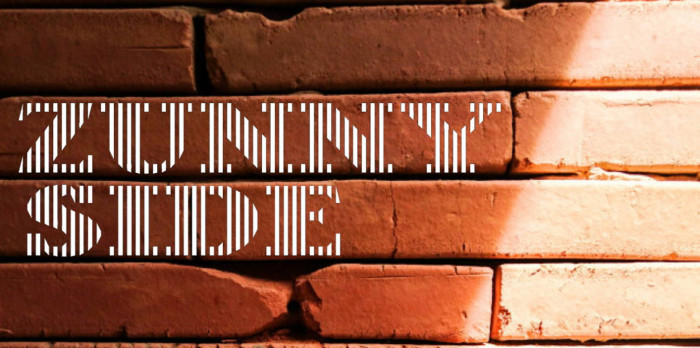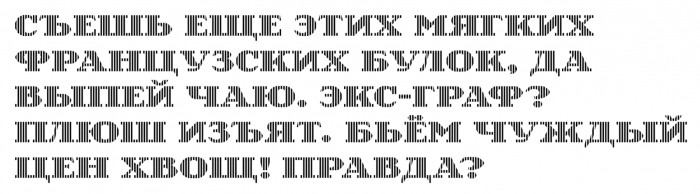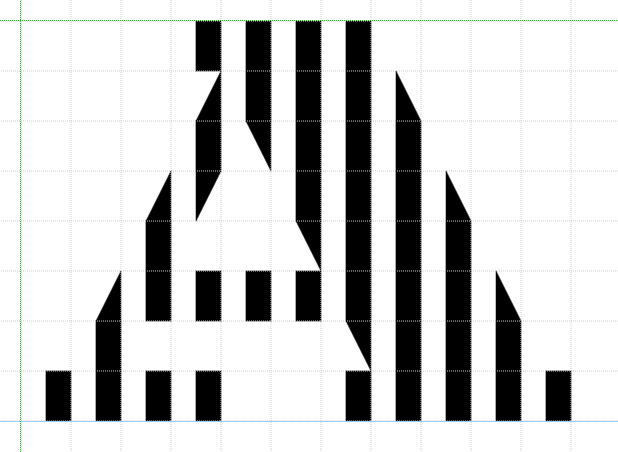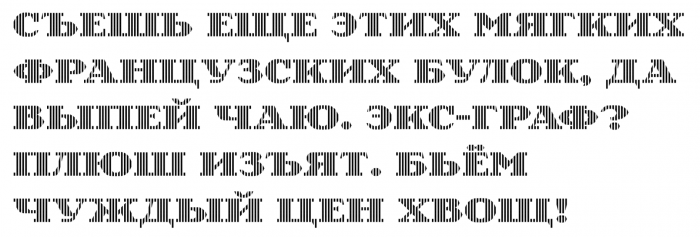
Wonderful! Cyrillic letters are looking pretty nice ;)
@architaraz: Thanks a lot, compañero! Some letters of the Cyrillic alphabet still make me somewhat insecure when I approach their construction, you know.
This font looks pretty nice. I wonder if a version with inverted stripes is possible? (e.g. for 2-color layering)…
Nice font, I like the Latin part. But there are a couple of mistakes in Cyrillic. И and Й should have a thin middle, remember writing with a broad-nib pen. Ф must have a serif at the top. Д has strange serifs, they rarely differ from each other, as in T (do not forget to compare with Ц Щ). Л usually has a larger curved drop or serif tip. And in this type of font л д should have serifs on the top right. If you are interested in looking at the Cyrillic alphabet, I can recommend fonts of Paratype (they will also publush finalists of Modern Cyrillic at 07/05/2021), Alex Slobzheninov, type.today and type.tomorrow, lettehead.
Very nice fat serif. You've managed to build a sophisticated font using very simple elements. The N should not have a bottom right serif. (Just interesting: at a particular size, there is a pattern, perhaps some sort of interference. Every second word appears to be solid. - I found out the reason: you have set the space at 2 and a quarter bricks. Apart from this, there are further cases of snippets of text that appear to be thicker. I think the cause might be kerning, using fractions. Nothing of this diminishes the usability of your font. Leave everything as is.) 10/10
love the "q"
Another really good fonstruction, I love your approach to curves, the angled serifs and the diacrtics in this one!
Perfect
@thalamic: Thanks a lot, Maestro. Far from trying to be perfect. The real reason for the vertical stripes was to be able to hide half of the design errors (hehehe ? ). And my oldest son says we saved half on printer ink. All a success, seen that way.